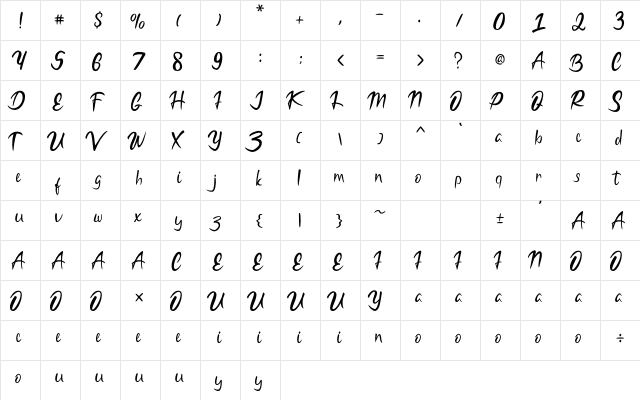
Bodytrack Regular
| Designer | Canda Creatype |
Design Context for Bodytrack Typeface
Bodytrack is a composed and adaptable typeface that performs quietly and consistently across a wide range of design contexts.